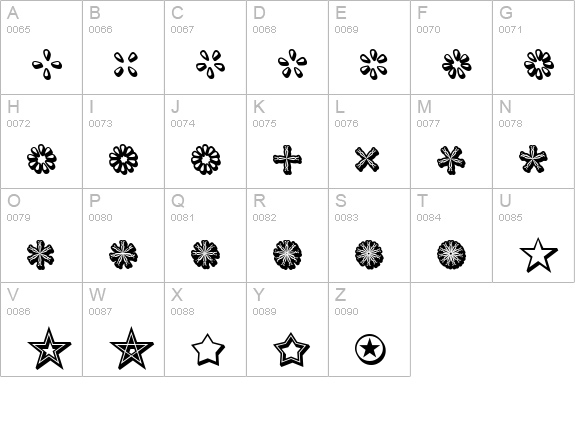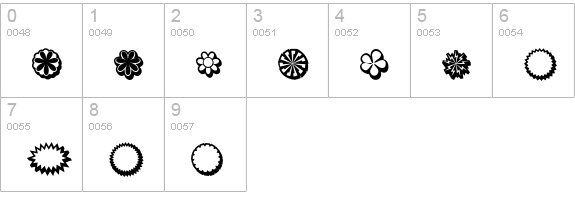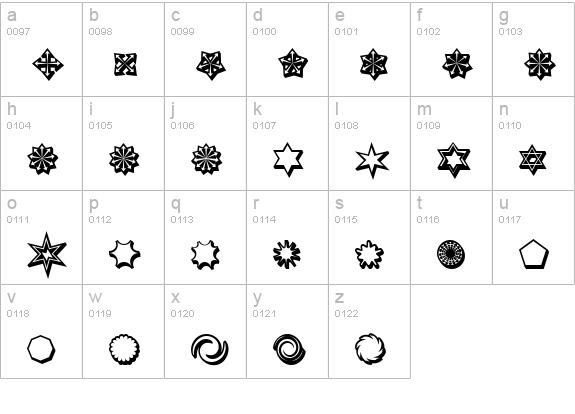
Asterisp Iota is a modern and stylish font that exudes elegance and sophistication. With its clean lines and delicate curves, this font is perfect for adding a touch of class to any design project. Whether you're working on a logo, branding materials, or a website, Asterisp Iota is sure to make a statement. The best part? Asterisp Iota is completely free to download at FontsMarket.com. That's right, you can access this stunning font at no cost, making it an excellent choice for designers on a budget or anyone looking to add a touch of luxury to their work. So why wait? Download Asterisp Iota today and elevate your designs with this beautiful and versatile font.